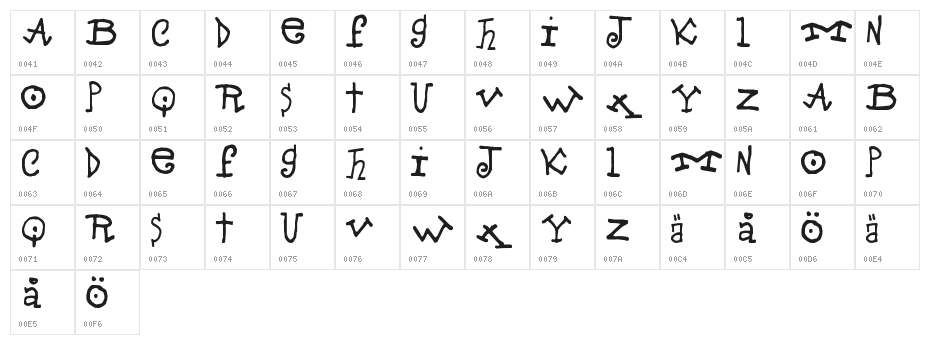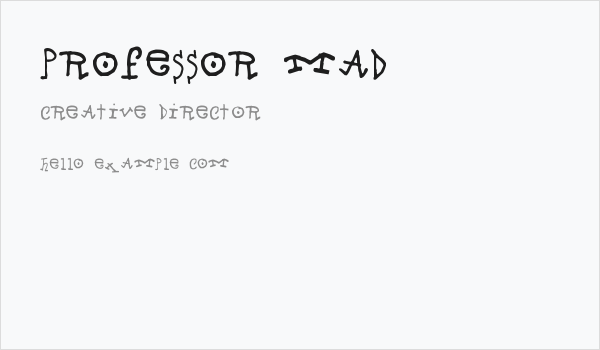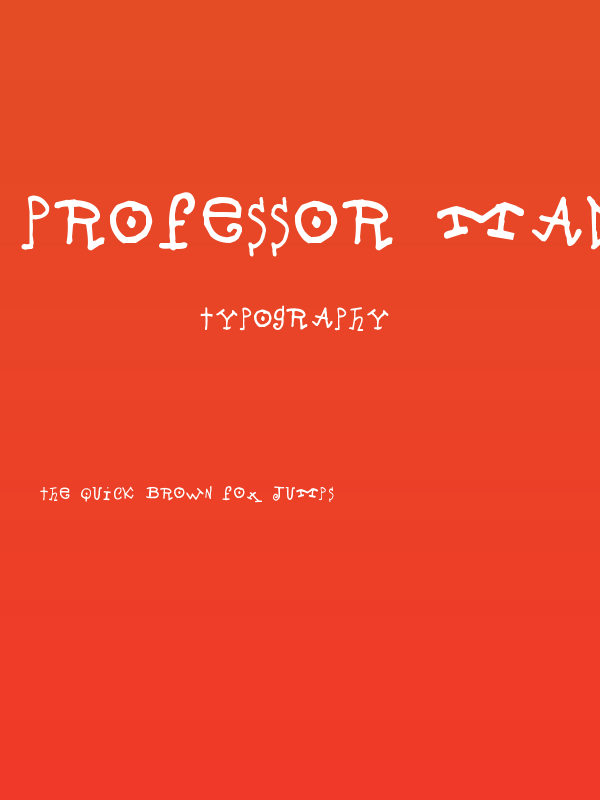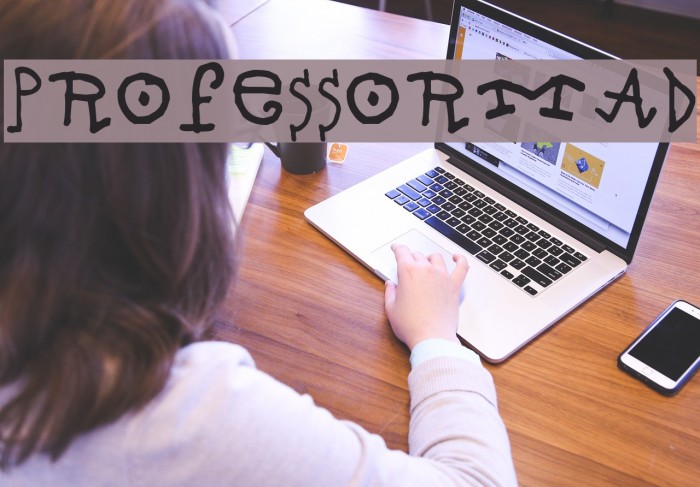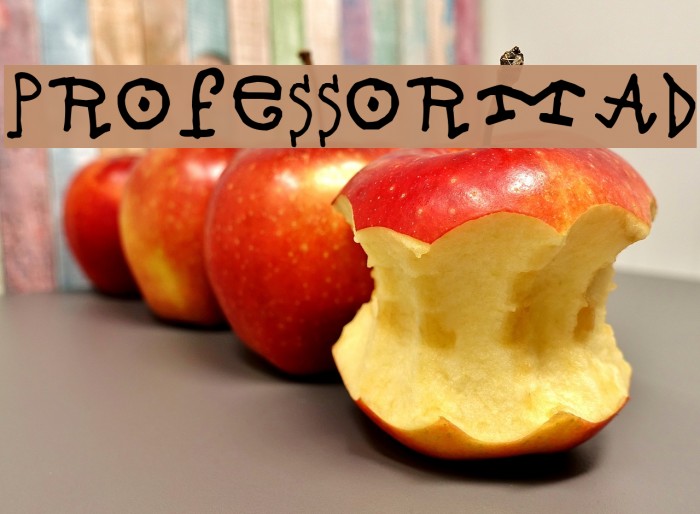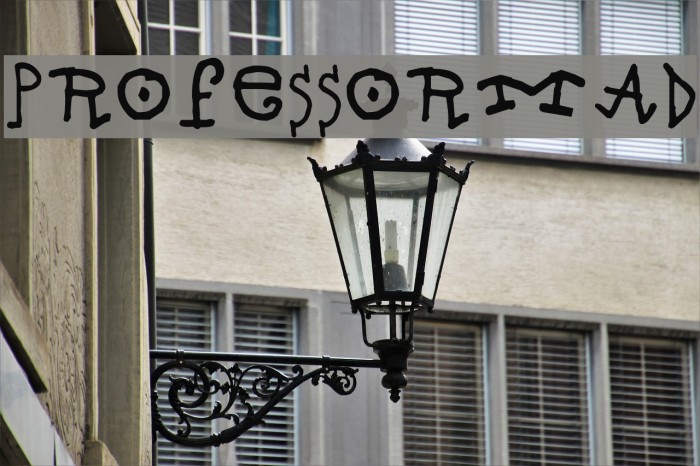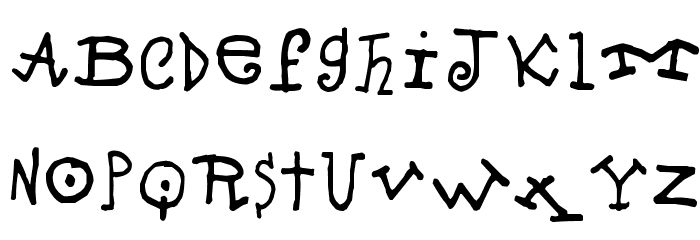
Professor Mad Font
Professor Mad Description
This font features a whimsical and playful design, characterized by its irregular and quirky letterforms. Each character exhibits a unique and artistic flair, with varying stroke thicknesses and unexpected curves. The uppercase and lowercase letters maintain a consistent style, while the numbers and special characters add to the font's eccentric charm. The overall appearance is reminiscent of hand-drawn or doodle-like typography, making it ideal for creative and informal projects.